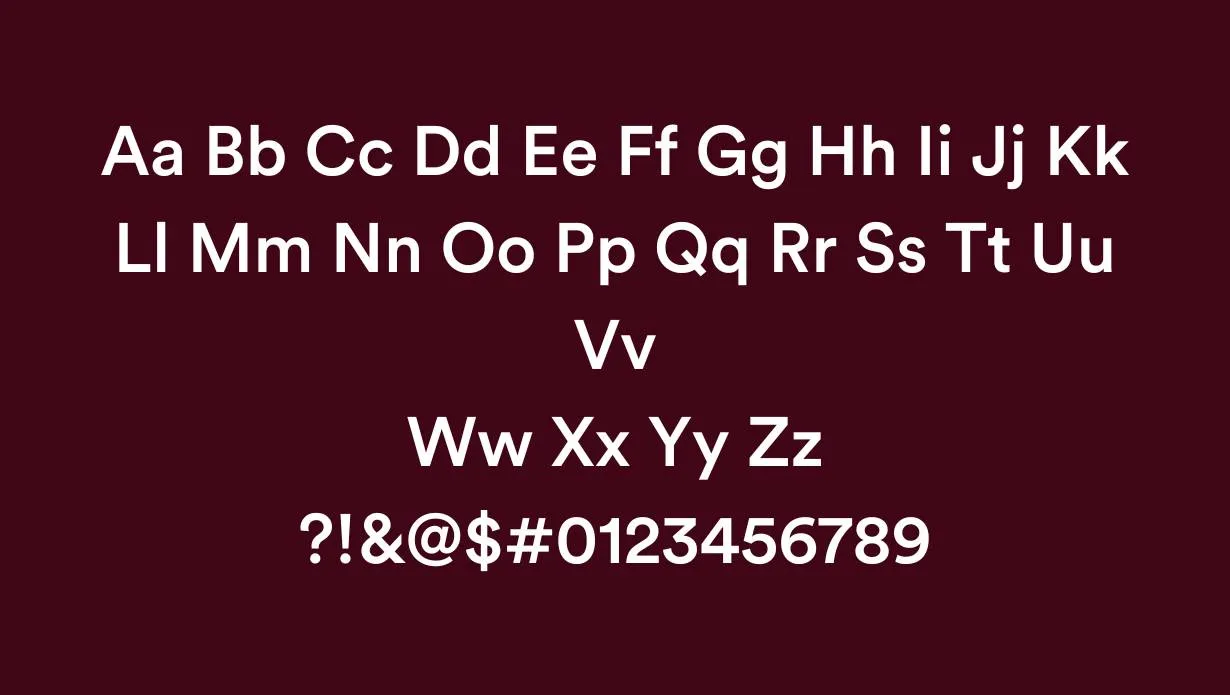
Circular Std Font is a versatile sans-serif typeface that provides a polished and modern look. It’s often used in editorial design, branding, and various design projects where clarity and sophistication are key.
The font’s clean lines and well-balanced letterforms convey professionalism and style.